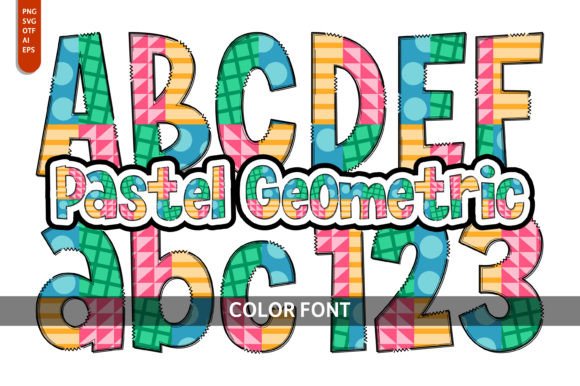
Journey into a world of vibrant hues and playful lines with the Pastel Geometric Font family, a collection of colorful fonts that will infuse your designs with a sense of joy and creativity. These fonts are not just letters; they are expressions of imagination, carefully crafted to capture the essence of fun and artistic expression.
Imagine a children's book that comes alive with whimsical characters and enchanting landscapes, brought to life by the playful strokes of the Pastel Geometric Font. Every page is a visual feast, inviting young readers to lose themselves in a world of wonder and imagination.
Envision a poster advertising a local art festival, bursting with colors that dance and merge, creating an irresistible allure. The Pastel Geometric Font takes center stage, drawing the eye with its captivating curves and joyful spirit. It's a font that commands attention, promising an artistic journey that will leave you inspired.
Picture an invitation to a special gathering, adorned with intricate patterns and delicate lines. The Pastel Geometric Font weaves its magic, creating a sense of anticipation and excitement. It's a font that sets the tone for a memorable occasion, one that promises laughter, joy, and unforgettable moments.